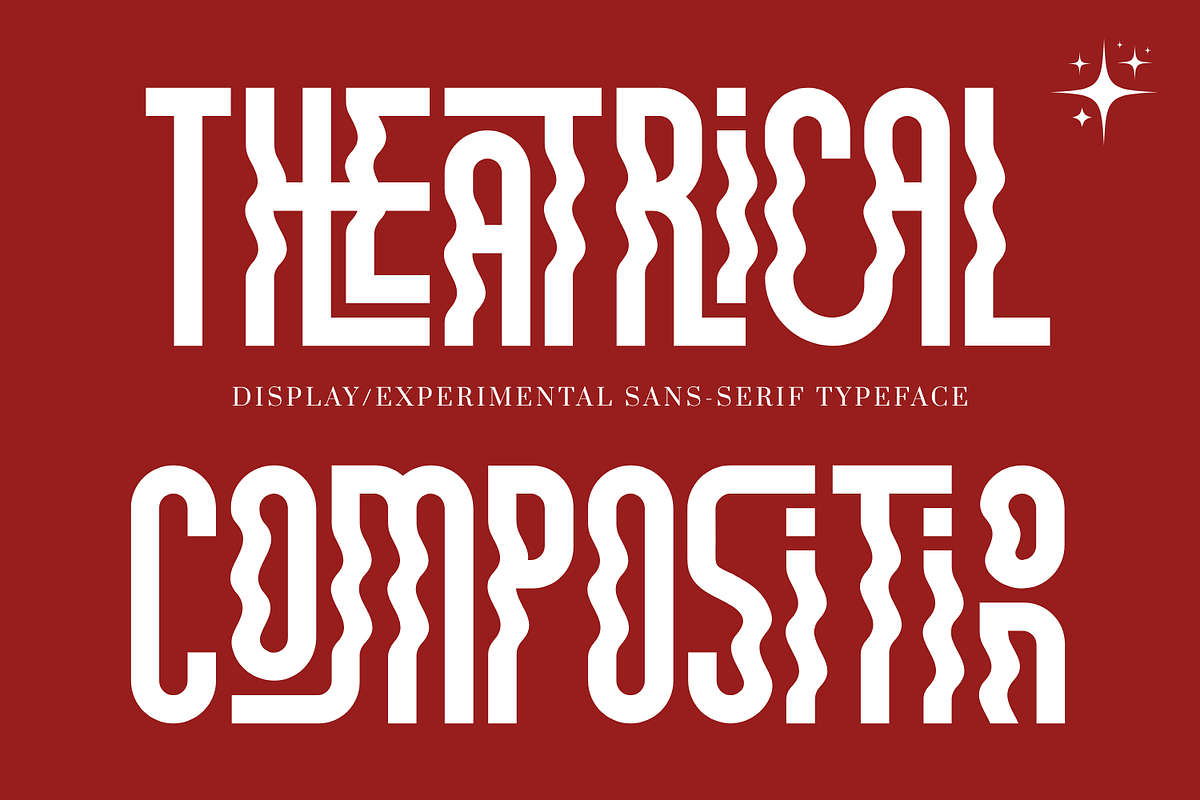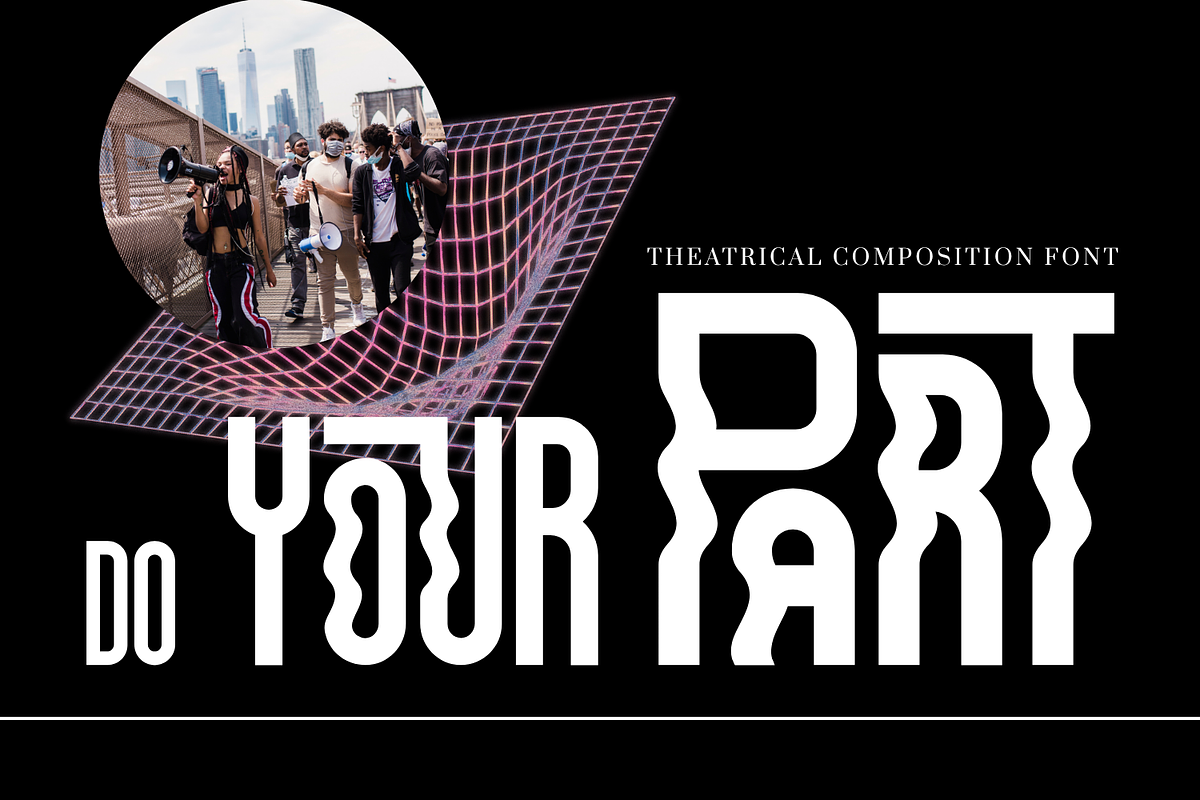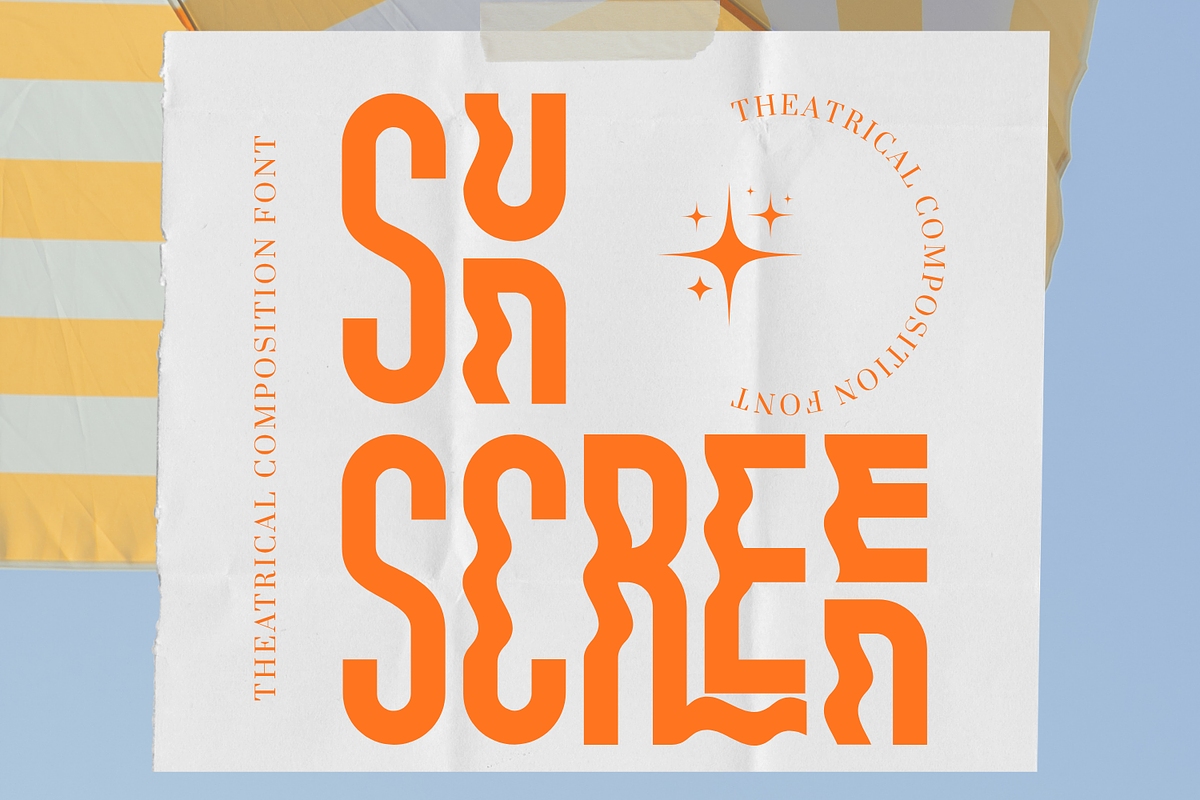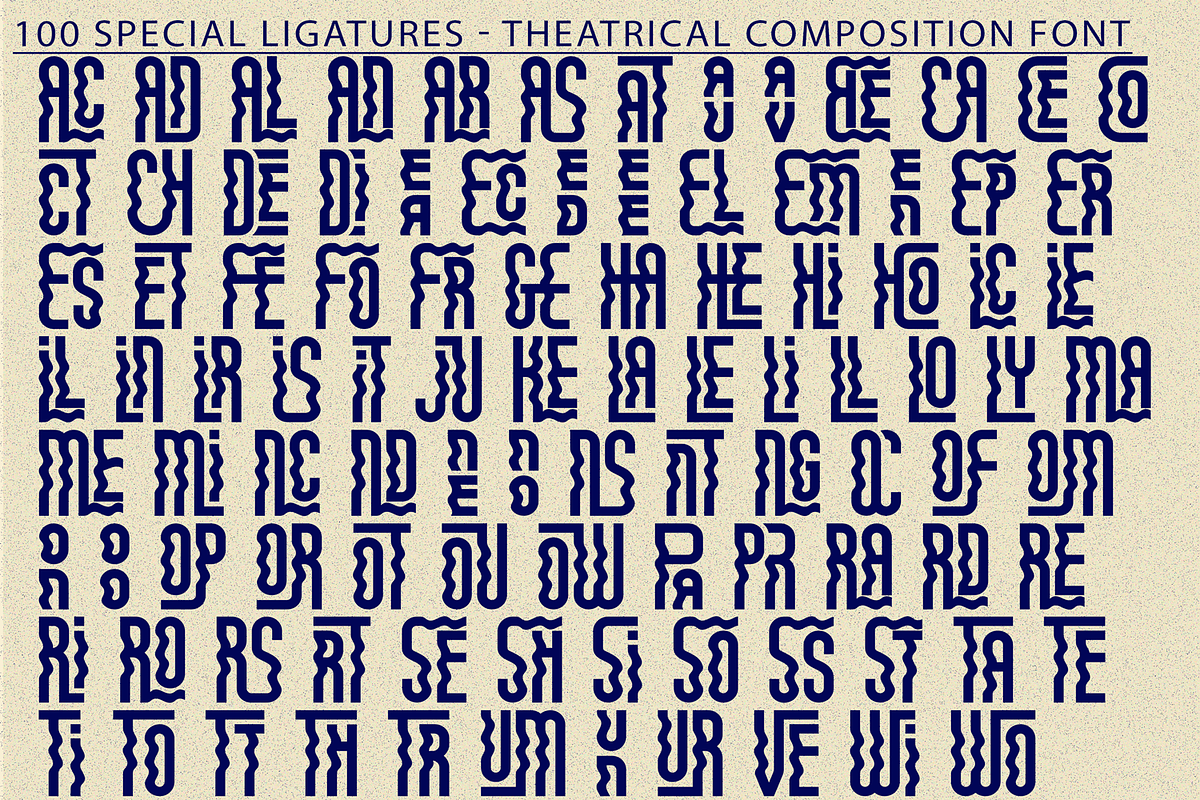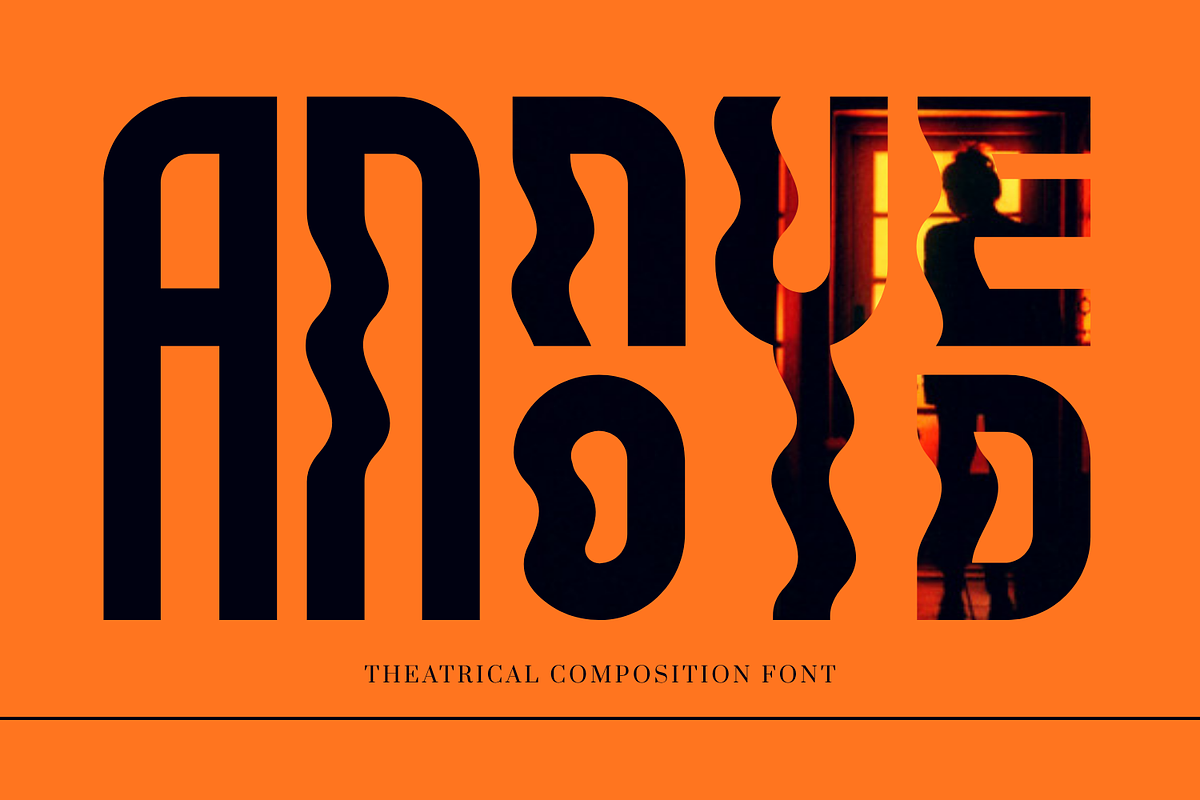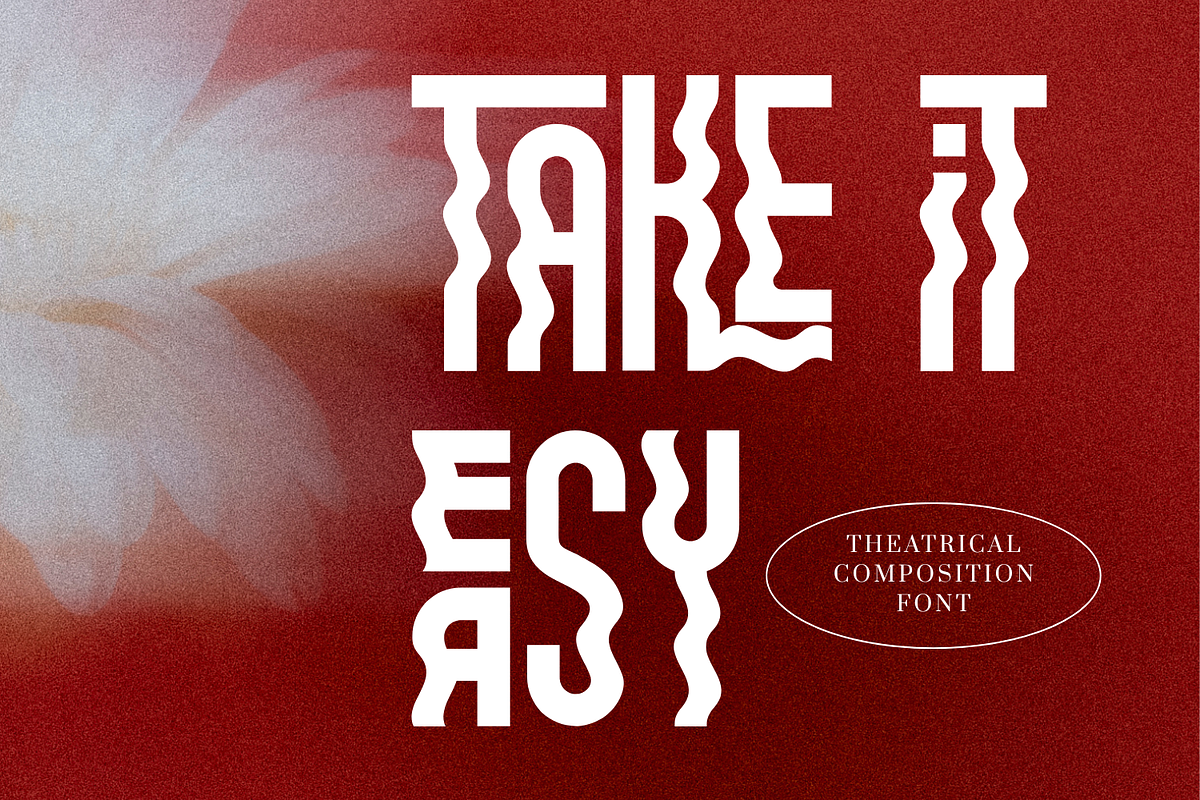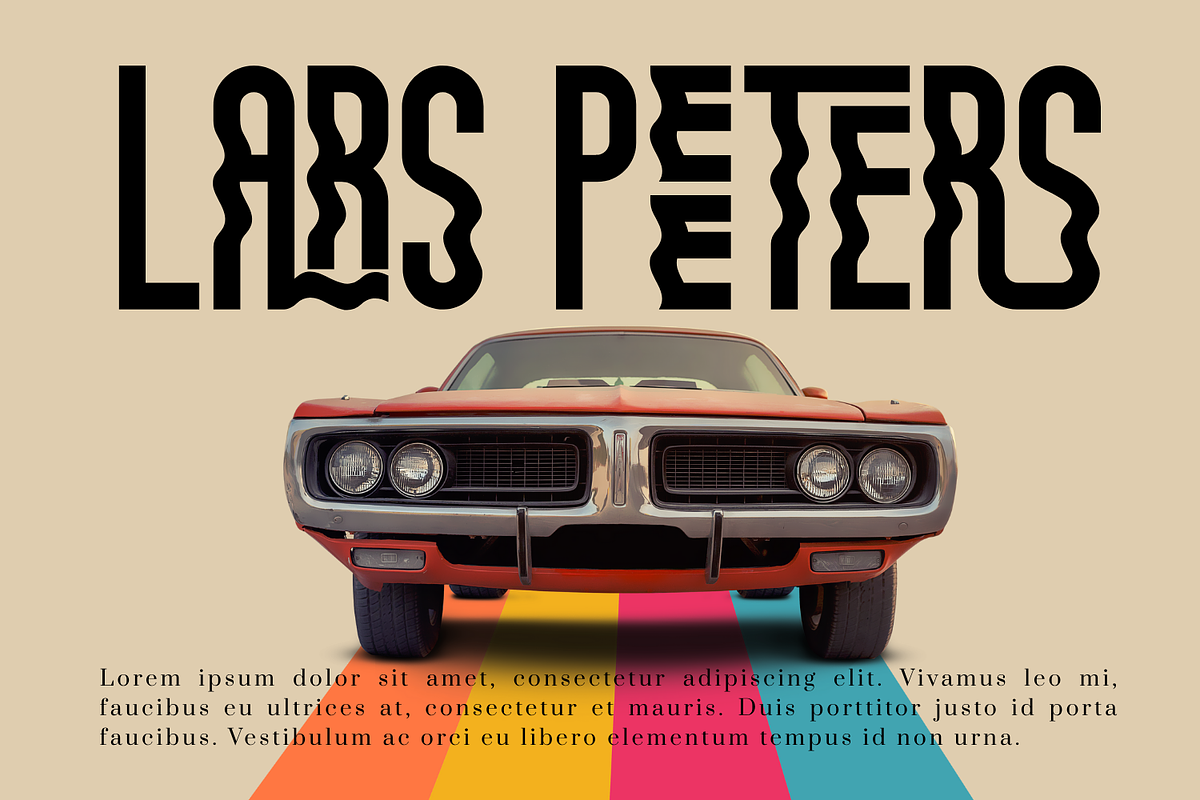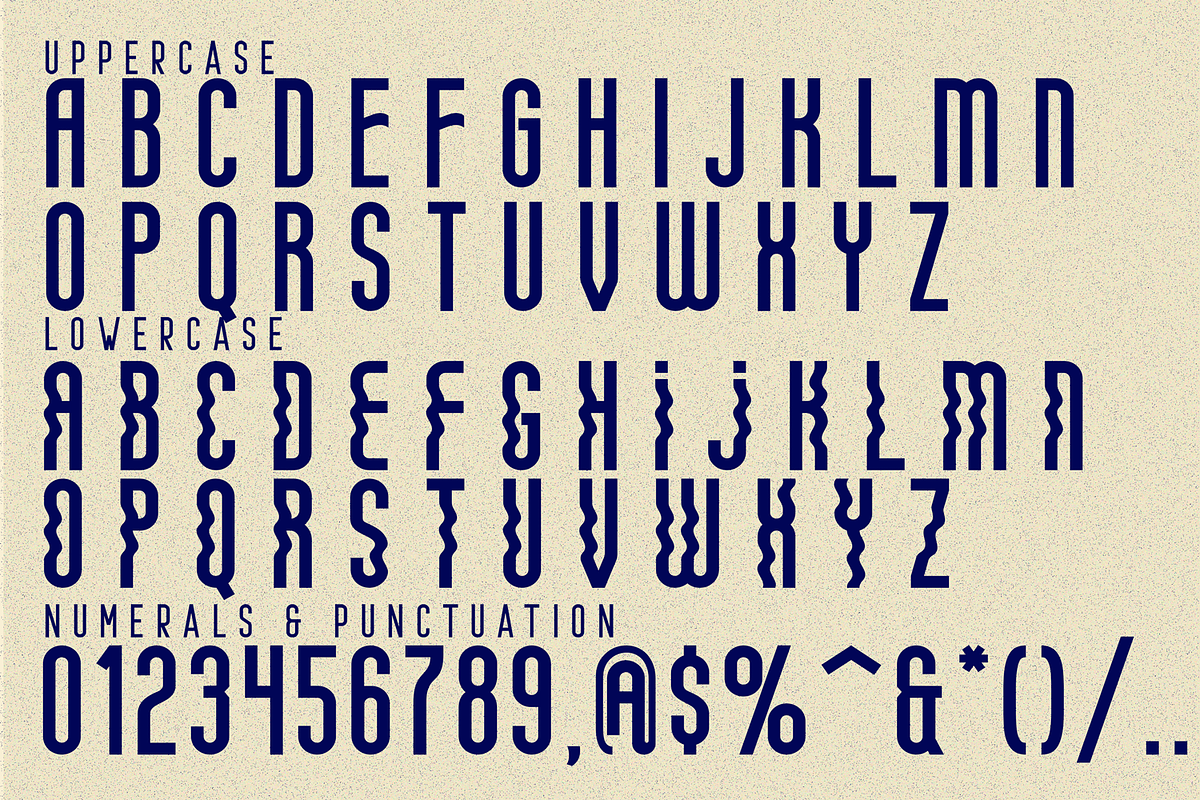
Theatrical Composition - Condensed
Theatrical Composition - Condensed Font, an Experimental Modern Display Font designed with bold geometric construction and distinctive wavy-line strokes. Its unique rhythm comes from the combination of rigid vertical lines and fluid wave-like curves, creating a striking visual texture that feels dynamic, theatrical, and unmistakably modern. Each letter is crafted with a strong sense of motion, making the font perfect for expressive headlines, posters, album covers, creative branding, and experimental typographic layouts. Theatrical Composition brings a fresh, artistic approach to display typography—balancing clean structure with playful distortion. The font captures attention instantly and injects personality into any project that seeks originality and bold visual impact.
- Uppercase & Lowercase Letters
- Around 100 Special Ligatures for enhanced creativity
- Multilingual Support with Accented Characters
About 100 ligatures combined with Stylistic Alternates Font:
AC AD AL AN AR AS AT AU AV BE CA CE CH CO CT DE DI EA EC ED EE EL EM EN EP ER ES ET FE FO FR GE HA HE HI HO IE IC IL IN IO IR IS IT JU KE LA LE LI LL LO LY MA ME MI NC ND NE NG NO NT NS OC OF OM ON OO OP OR OT OU OW PA PR RA RD RE RI RO RS RT SE SH SI SO SS ST TA TE TH TI TO TR TT UM UN UR VE WI WO